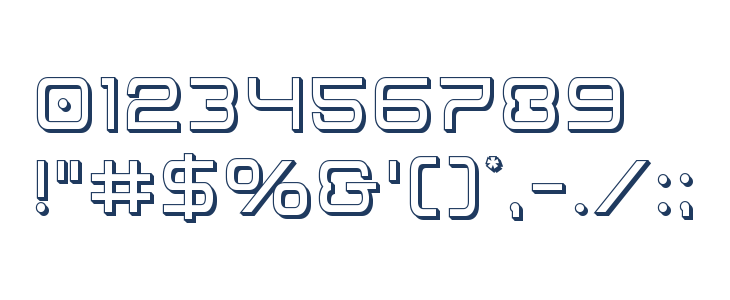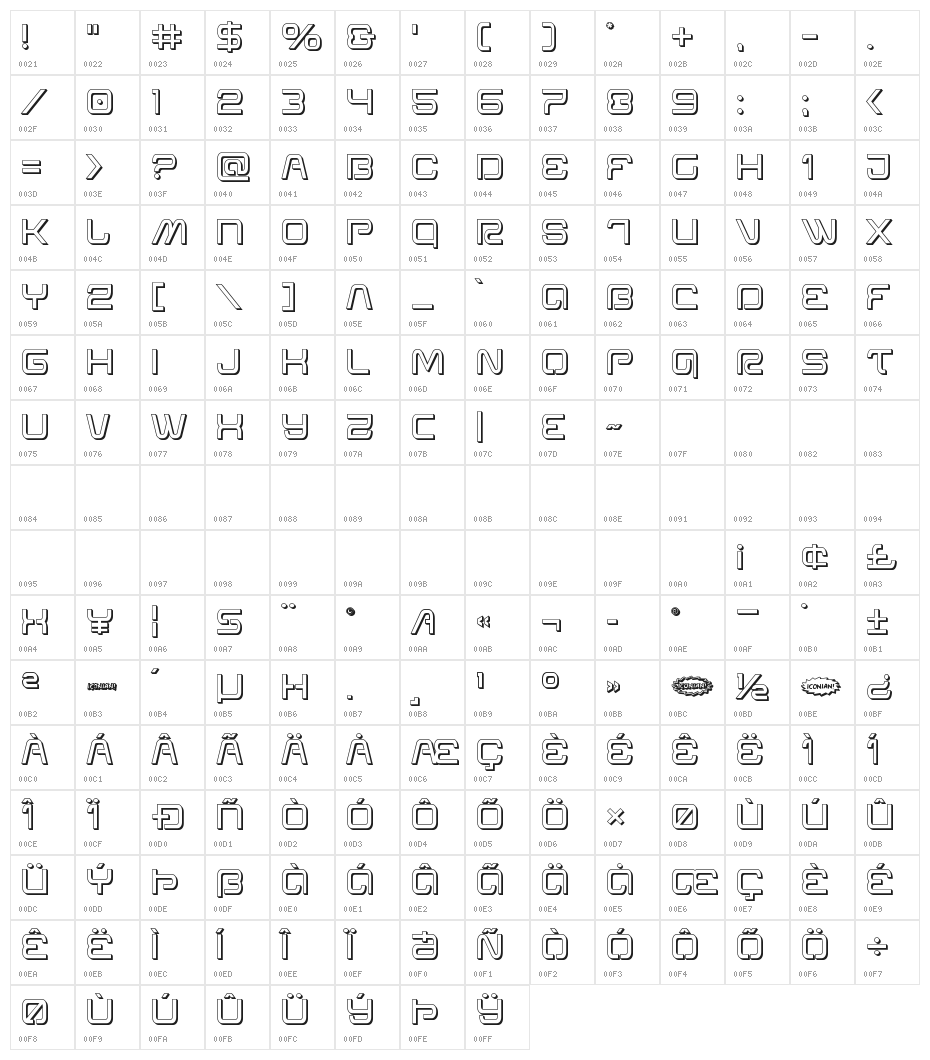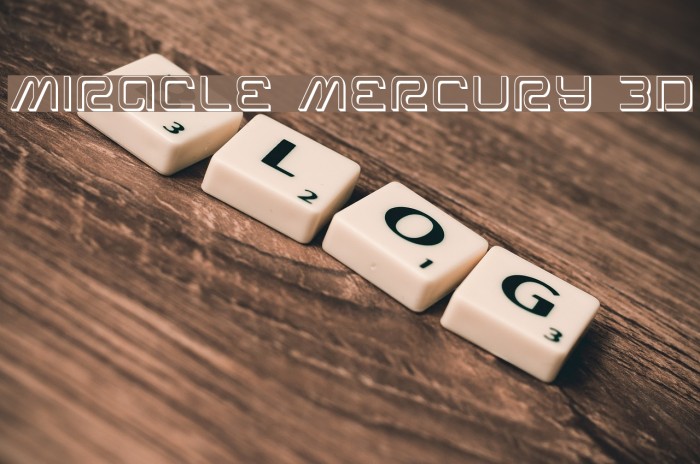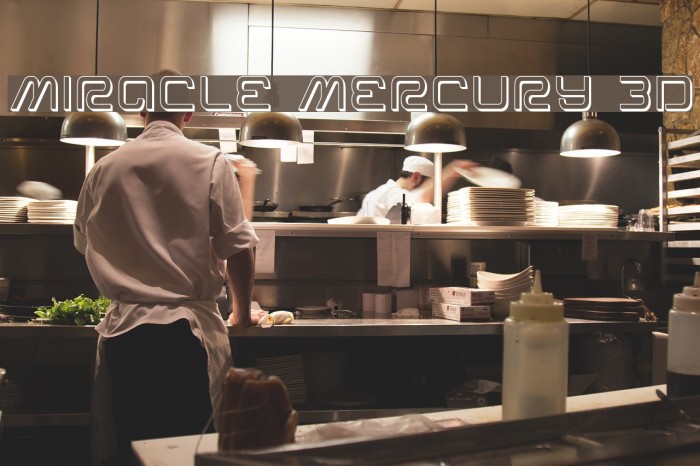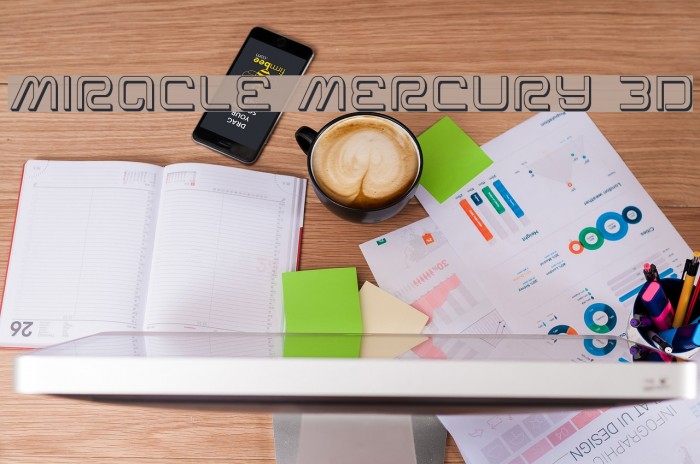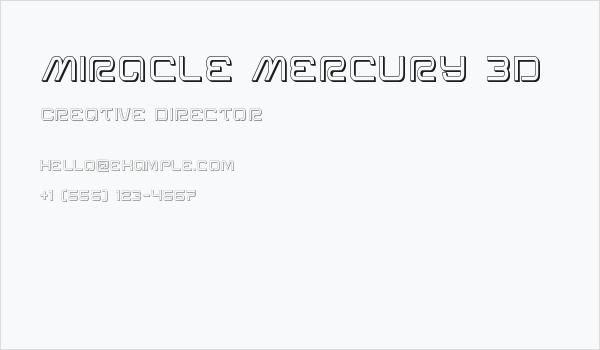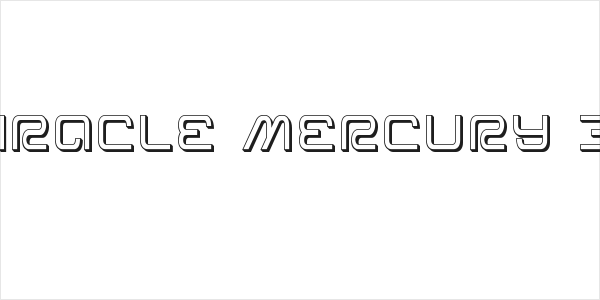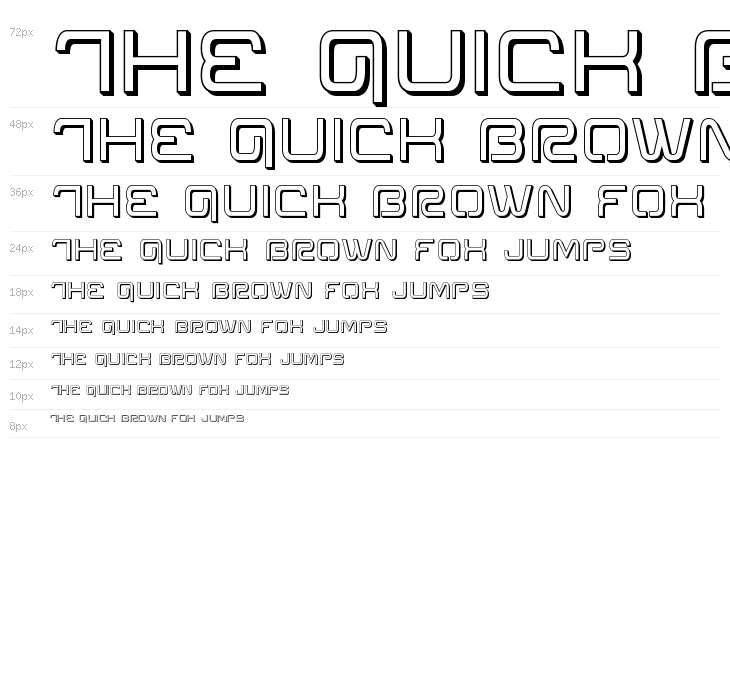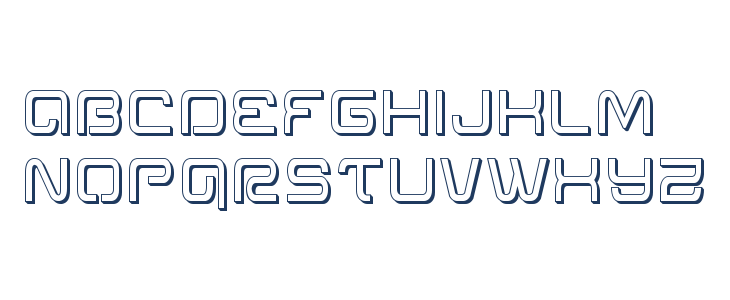
Miracle Mercury 3D Font
Miracle Mercury 3D Description
This font features a futuristic and geometric design with a 3D effect, characterized by bold, outlined letters that create a sense of depth. The uppercase and lowercase letters maintain a consistent style, with rounded edges and a uniform thickness that gives a modern and sleek appearance. The numerals and special characters follow the same design principles, ensuring a cohesive look across all characters. The font's unique style makes it stand out, suitable for projects that require a contemporary and eye-catching typeface.
| Proposed Projects | Ideal for sci-fi themed designs, technology branding, video game titles, and modern advertising campaigns. |